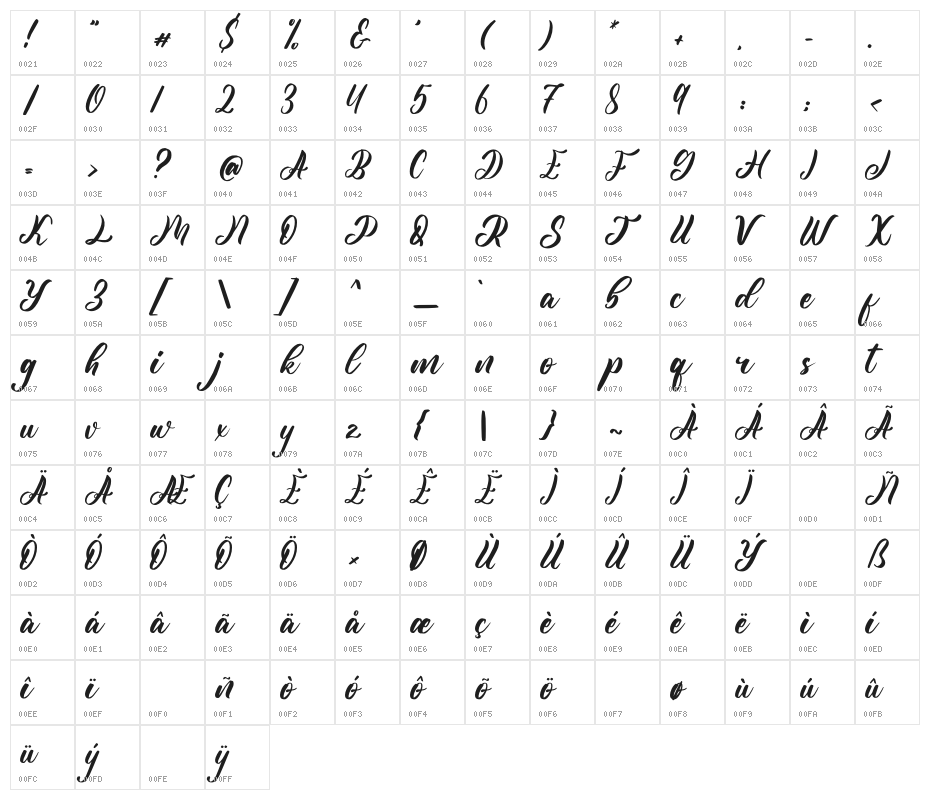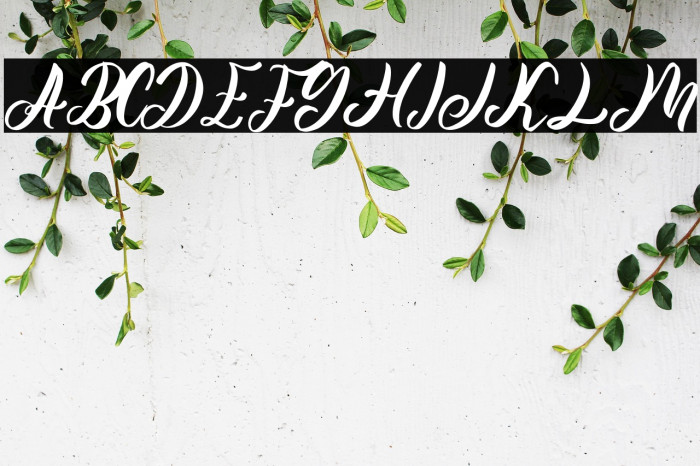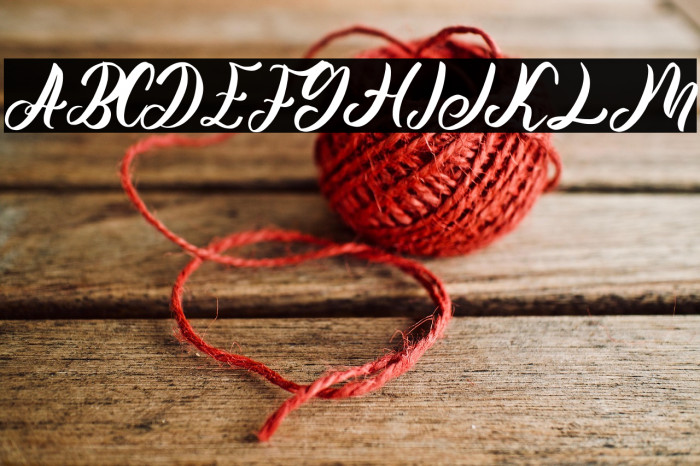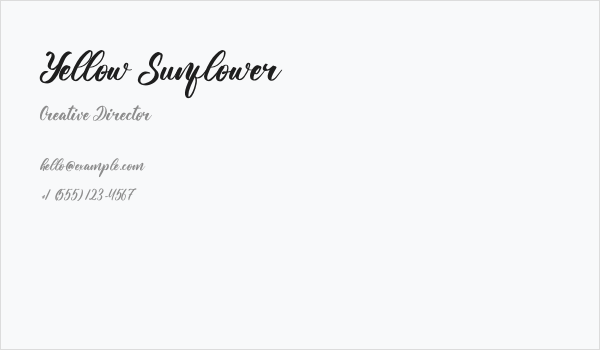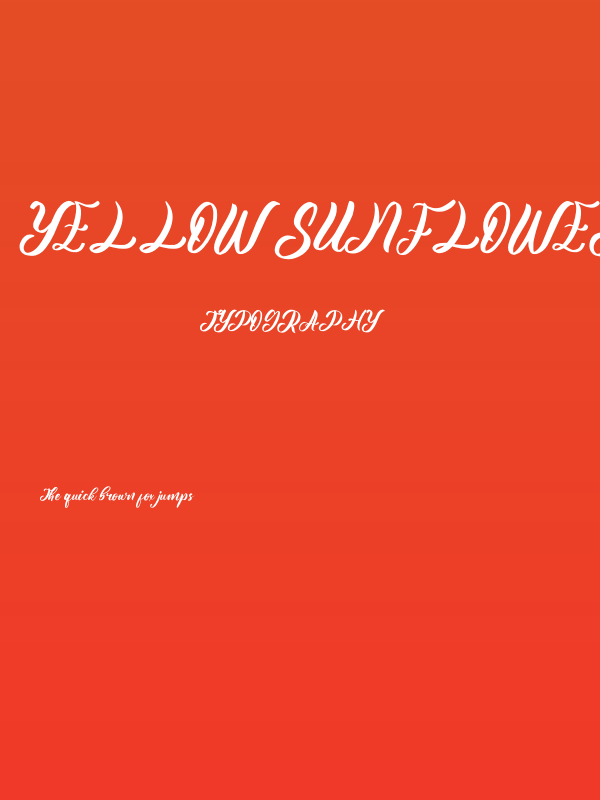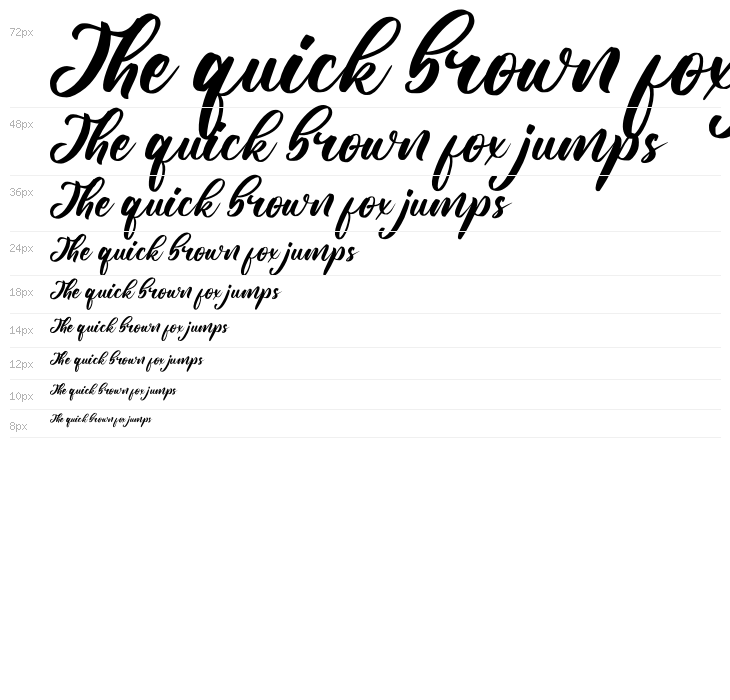
Yellow Sunflower Font
Yellow Sunflower Description
This font features a flowing, cursive style with a modern twist. The uppercase letters are elegantly looped and connected, giving a sense of fluidity and grace. The lowercase letters maintain a consistent style, with smooth curves and a slight slant, enhancing readability while retaining an artistic flair. The numbers are bold and clear, matching the overall aesthetic of the font. Special characters are designed to complement the letters, maintaining the same elegant and flowing style. This font is perfect for projects that require a touch of sophistication and elegance, such as invitations, branding, and decorative designs.
| Proposed Projects | Ideal for wedding invitations, branding, decorative designs, and elegant signage. |